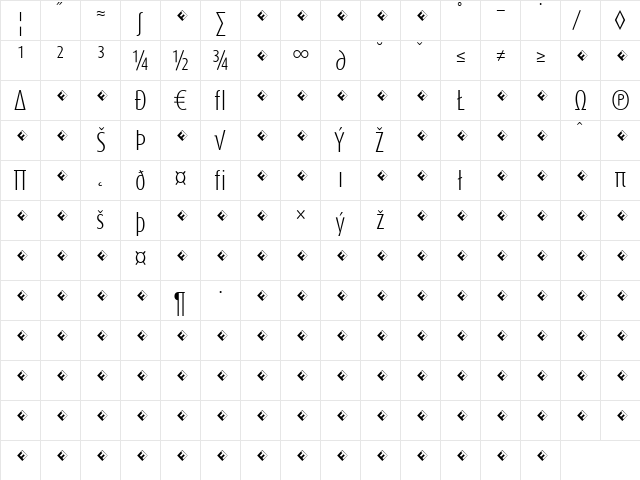
DaxCompact-LightExpert Regular Font Preview
| Foundry | Hans Reichel, published by FontShop International for the FontFont library |
Design Context for DaxCompact-LightExpert Typeface
DaxCompact-LightExpert takes a measured approach to typography — its balanced proportions and neutral character make it a reliable workhorse for both digital and print work. Its slender proportions lend an understated elegance to any composition. The condensed width makes it efficient for tight spaces without sacrificing legibility.